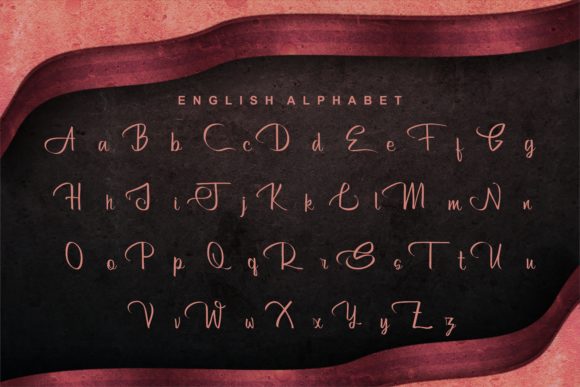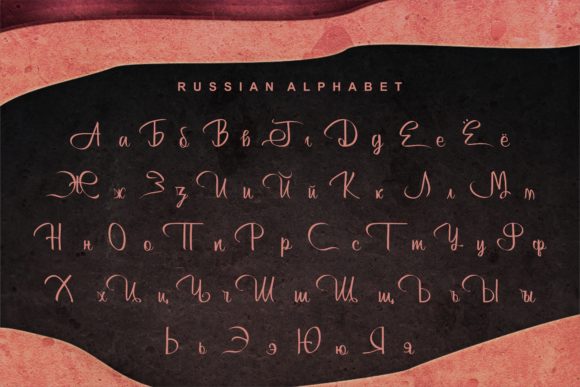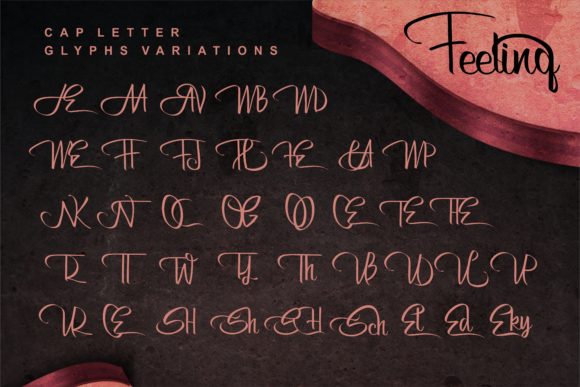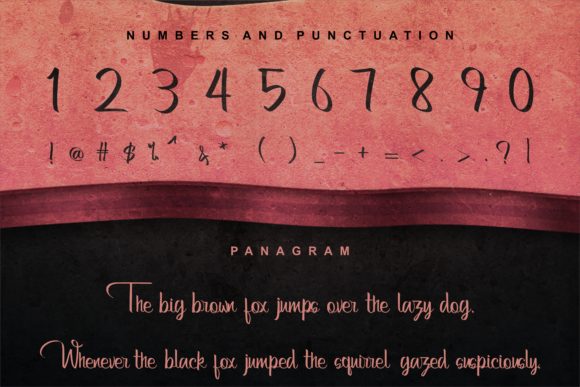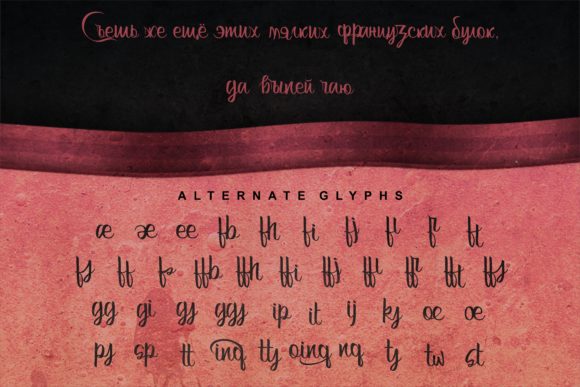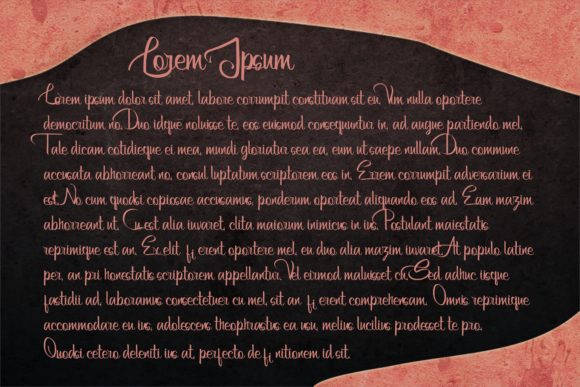
Introducing Bertha Font: Elevate Your Designs with Elegance
The Bertha font is a stunning handwritten script font that exudes luxury and sophistication. With its elegant feel and beautiful strokes, it’s the perfect addition to any design project. Whether you’re a designer, crafter, or DIY enthusiast, Bertha font is sure to take your creations to the next level.
The Story Behind Bertha Font
Bertha font is a carefully crafted handwritten script font that is designed to add a touch of elegance to your designs. Its unique and flowing strokes make it perfect for a variety of projects, from wedding invitations and branding materials to packaging and digital media. The font is inspired by traditional calligraphy and handwriting, but with a modern twist that makes it versatile and easy to use.
Key Features of Bertha Font
- Elegant and Luxurious Feel: Bertha font has a sophisticated and high-end feel that will elevate your designs and make them stand out.
- Handwritten Script Style: The font features beautiful handwritten strokes and connections that give it a personal and unique touch.
- Versatile and Easy to Use: Bertha font is perfect for a variety of projects, from digital media to print materials, and can be used for both personal and commercial purposes.
- High-Quality Design: The font is carefully designed and crafted to ensure that it looks great in any size or resolution.
Uses of Bertha Font
Bertha font is a versatile font that can be used for a wide range of projects, including:
- Wedding Invitations and Stationery: Add a touch of elegance and sophistication to your wedding invitations, save-the-date cards, and other stationery.
- Branding and Packaging: Use Bertha font to create luxurious and high-end branding materials, such as logos, business cards, and product packaging.
- Digital Media: Bertha font is perfect for digital media, including social media graphics, blog posts, and website headers.
- Crafting and DIY Projects: Add a personal touch to your crafting and DIY projects, such as handmade cards, gift tags, and scrapbooking.
Tips for Using Bertha Font
Here are some tips for getting the most out of Bertha font:
- Use it as a Headline Font: Bertha font is perfect for headlines and titles, where its elegant and luxurious feel can really shine.
- Pair it with Other Fonts: Experiment with pairing Bertha font with other fonts to create a unique and interesting look.
- Adjust the Size and Color: Play around with different sizes and colors to find the perfect combination for your design.
In conclusion, Bertha font is a beautiful and elegant handwritten script font that is perfect for designers, crafters, and DIY enthusiasts. With its luxurious feel and versatile design, it’s sure to elevate your designs and take them to the next level. Whether you’re looking to add a touch of sophistication to your wedding invitations, branding materials, or digital media, Bertha font is the perfect choice.